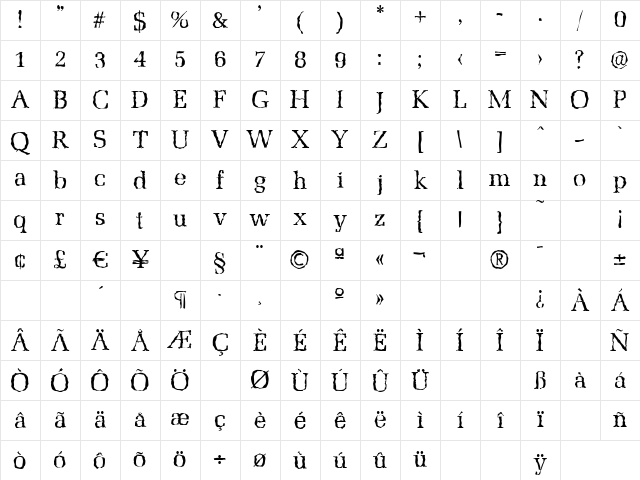
MarseilleRandom Regular
Design Context for MarseilleRandom
MarseilleRandom is a composed and adaptable typeface that performs quietly and consistently across a wide range of design contexts.
Pro Tip: Use MarseilleRandom in both headline and body roles to test its range before committing to a single application.